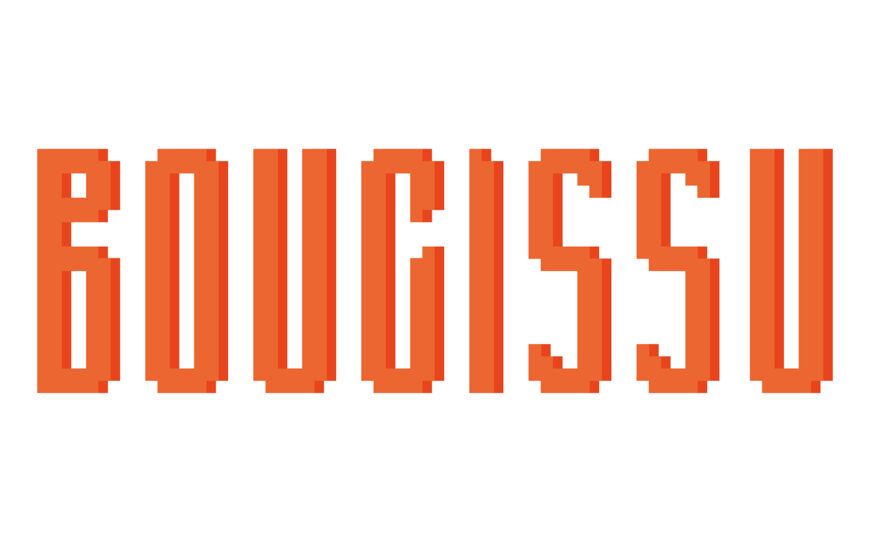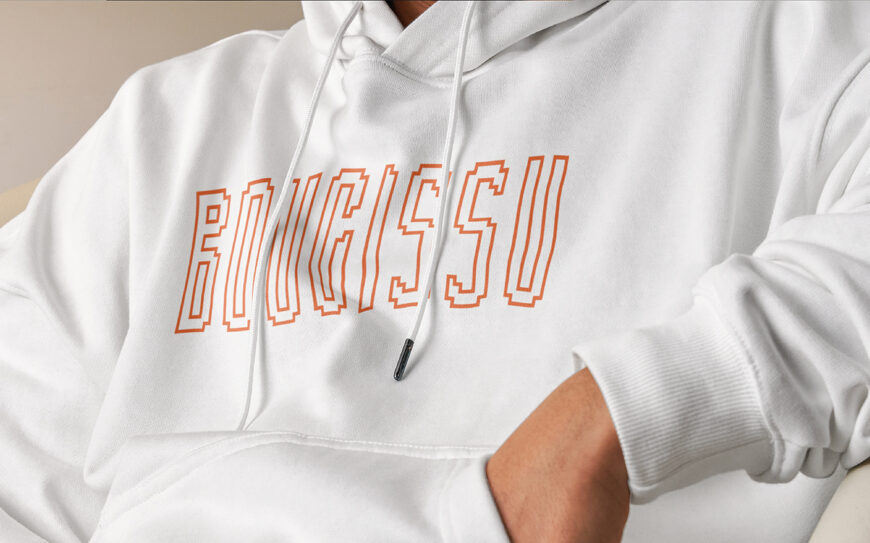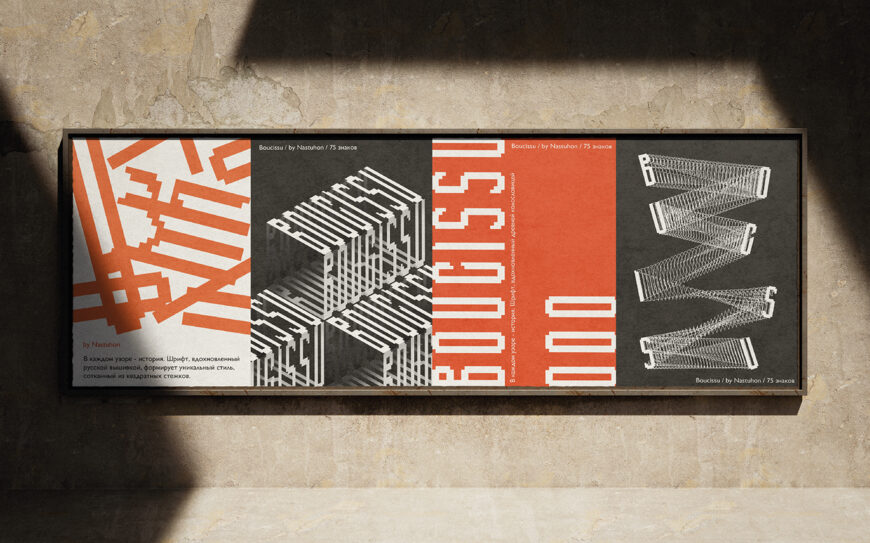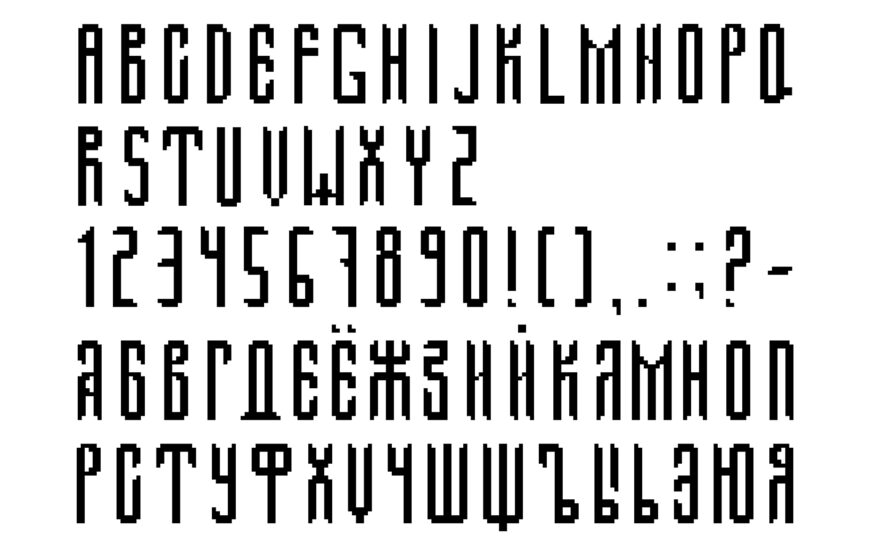
Boucissu is a distinctive display font inspired by traditional Russian embroidery. Its unique character is built from geometric, square-shaped stitches, creating a handcrafted decorative appearance.
Designed by Anastasiya Malikova, the font supports both Latin and Cyrillic alphabets, making it suitable for a wide range of creative projects, including branding, posters, packaging, and decorative designs.